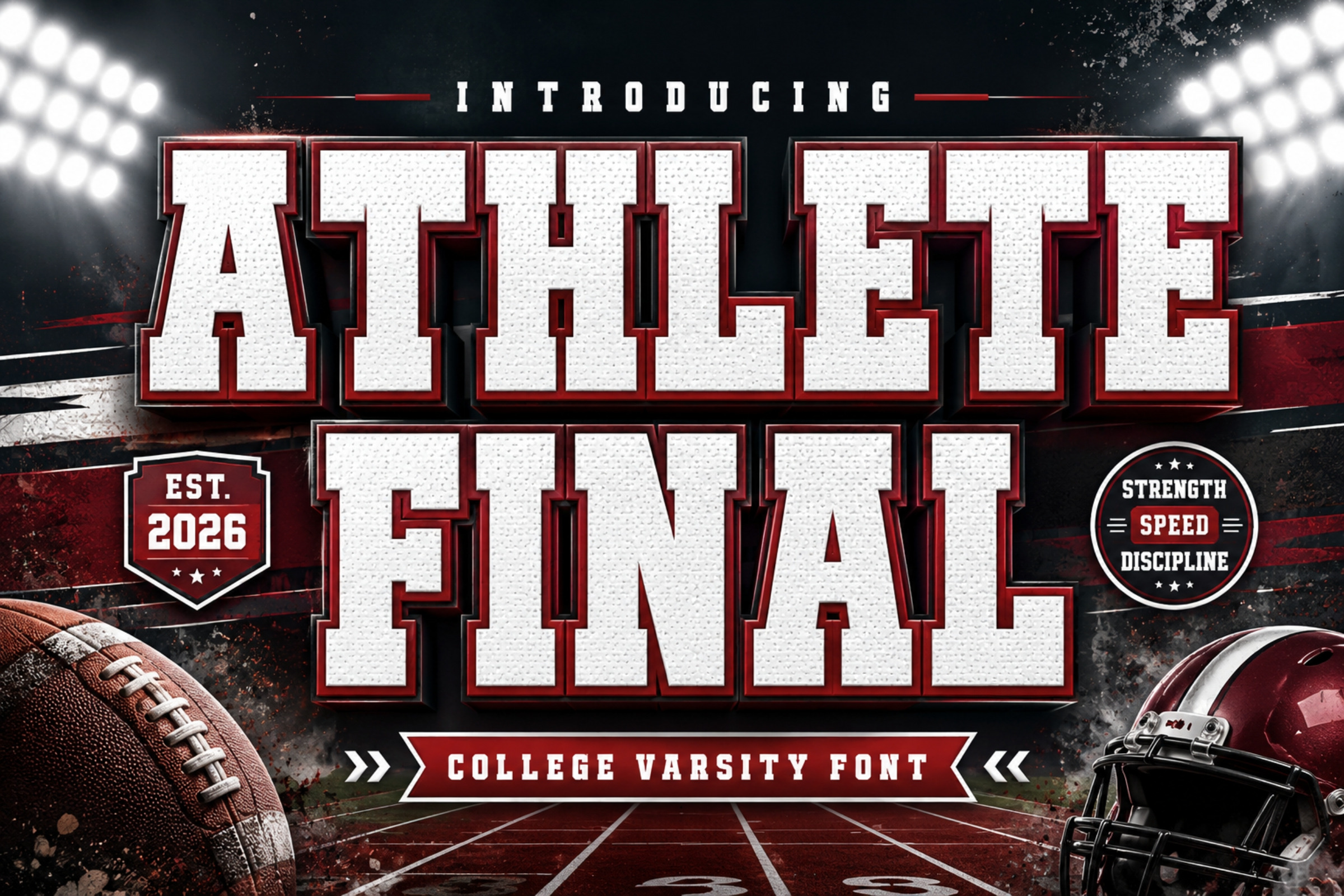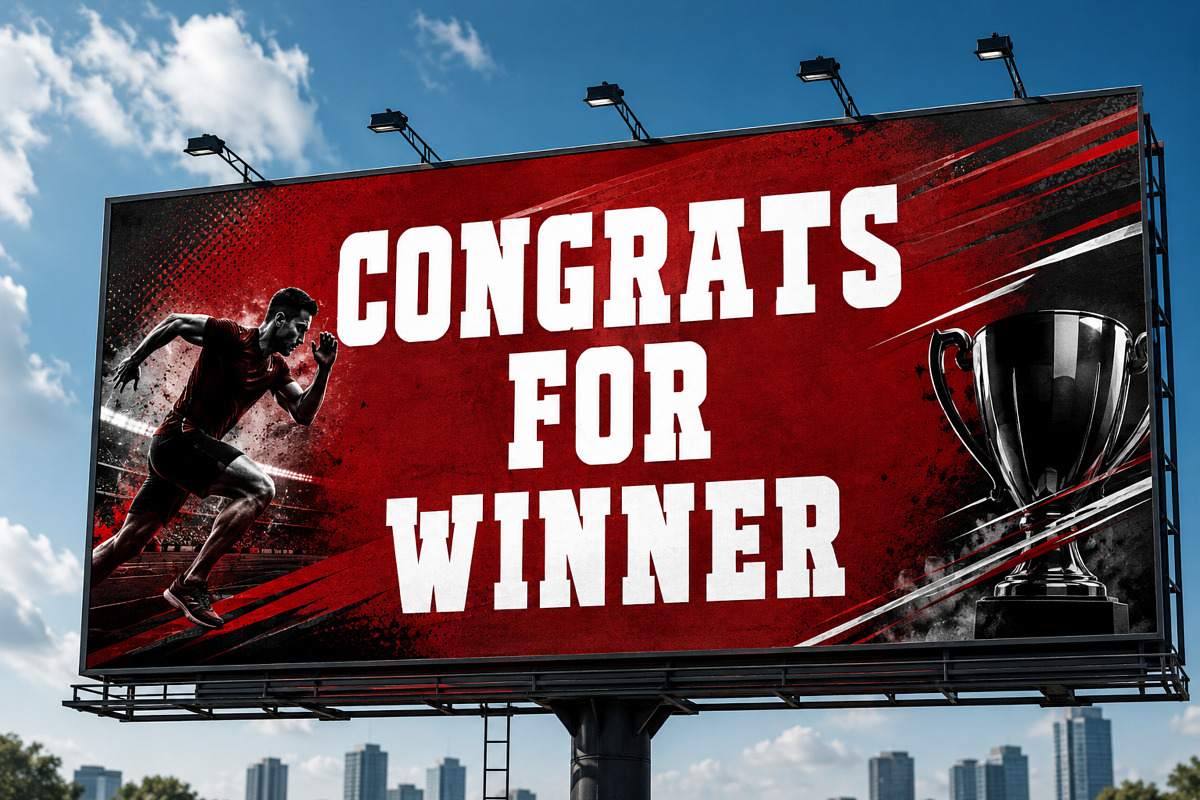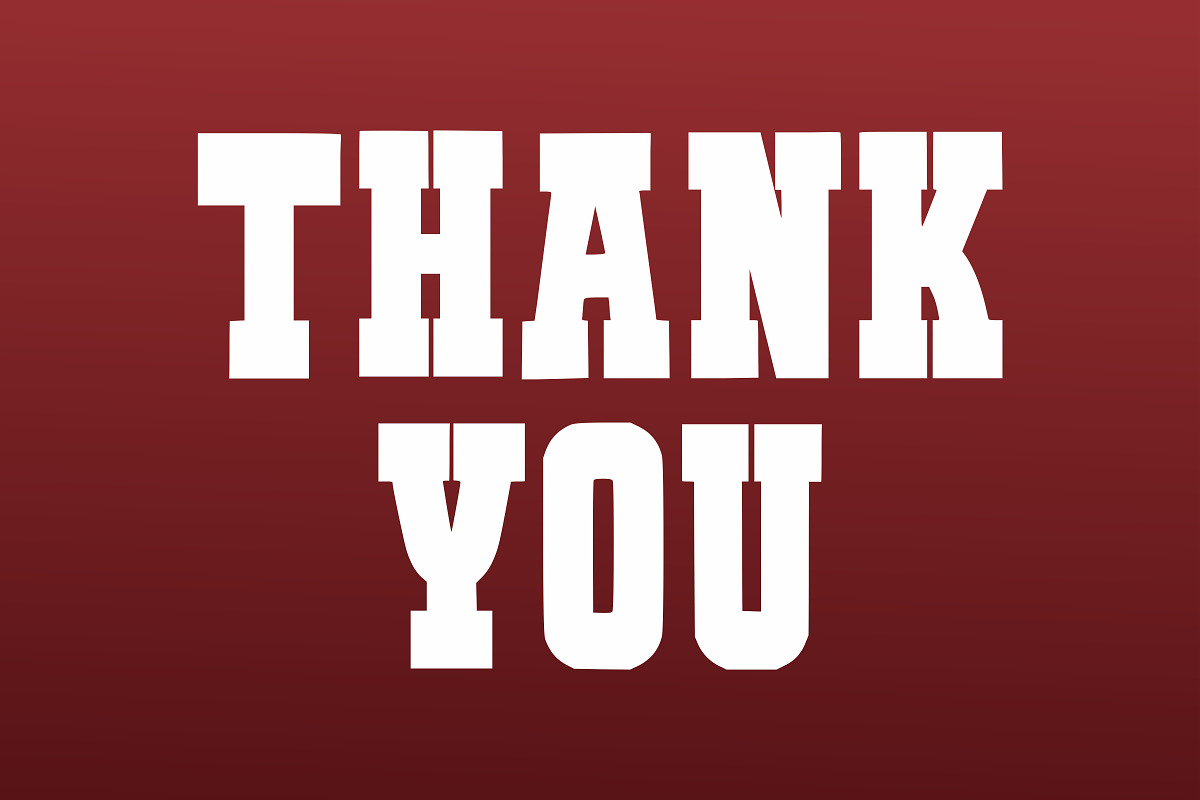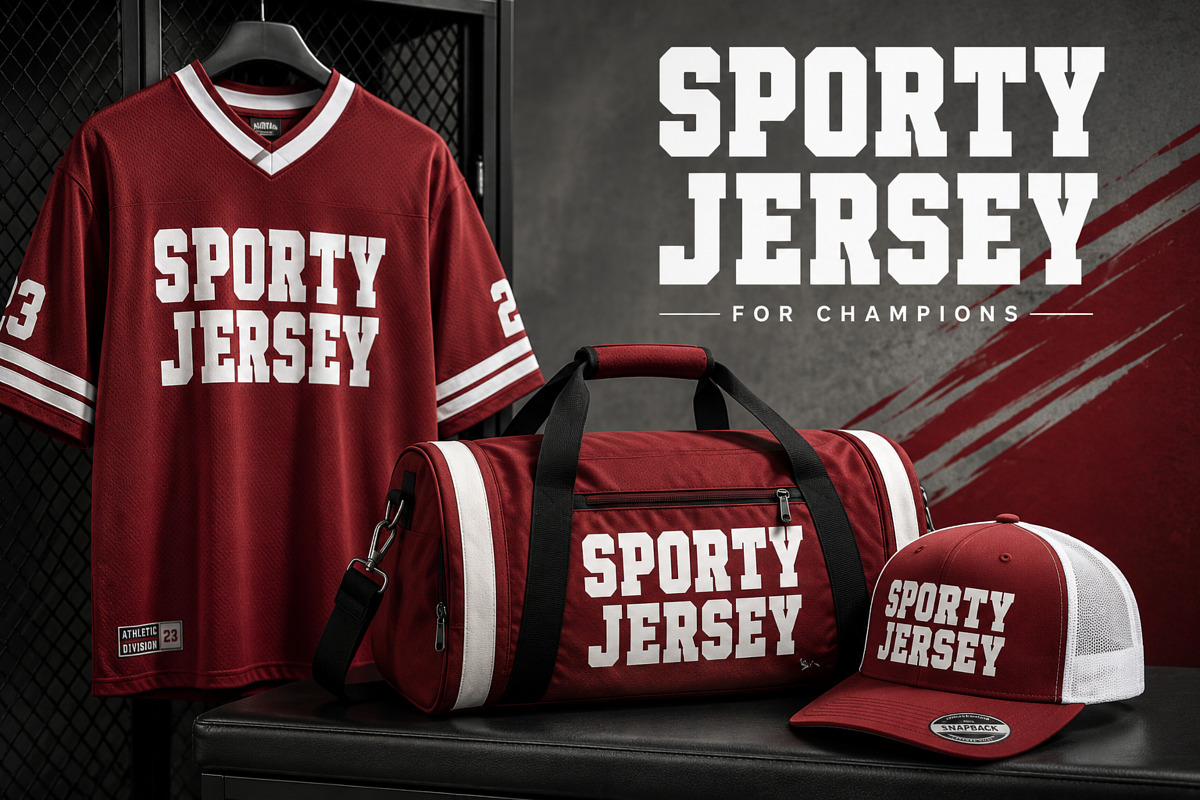
Athlete Final – Bold Varsity Font
Athlete Final is a bold varsity-style display font designed to capture the energy of competitive sports and collegiate athletics. Featuring strong block letterforms, athletic outlines, and a classic championship look, this font is perfect for sports branding, team uniforms, school merchandise, and game-day graphics.
Whether you're designing for football, baseball, basketball, hockey, esports, or university projects, Athlete Final delivers a strong, confident, and professional sports identity.
Authentic varsity lettering style
Bold athletic display font
Collegiate and championship aesthetic
Strong block characters
Perfect for sports branding
Uppercase letters
Easy-to-read sports typography
Team logos
Sports jerseys
Football graphics
College branding
School merchandise
T-shirt designs
Posters & banners
Athletic events
Gym branding
Esports teams
Social media sports content
Sports packaging